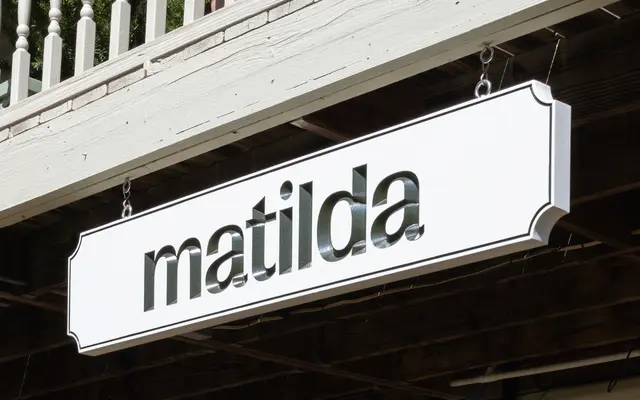
PP Right Grotesk
Pangram Foundry · Alex Slobzheninov · 2020
A 130-style neo-grotesque by Alex Slobzheninov, with display and text cuts across seven widths and seven weights.
Right Grotesk is the anchor of Pangram's Right superfamily, a 130-style neo-grotesque by Alex Slobzheninov. Seven display cuts cover the wider Right system shapes, and five additional text cuts are tuned for paragraph reading. Moderate contrast, smooth curves and slightly unusual anatomy give it more personality than a strict workhorse, with Cyrillic support throughout.